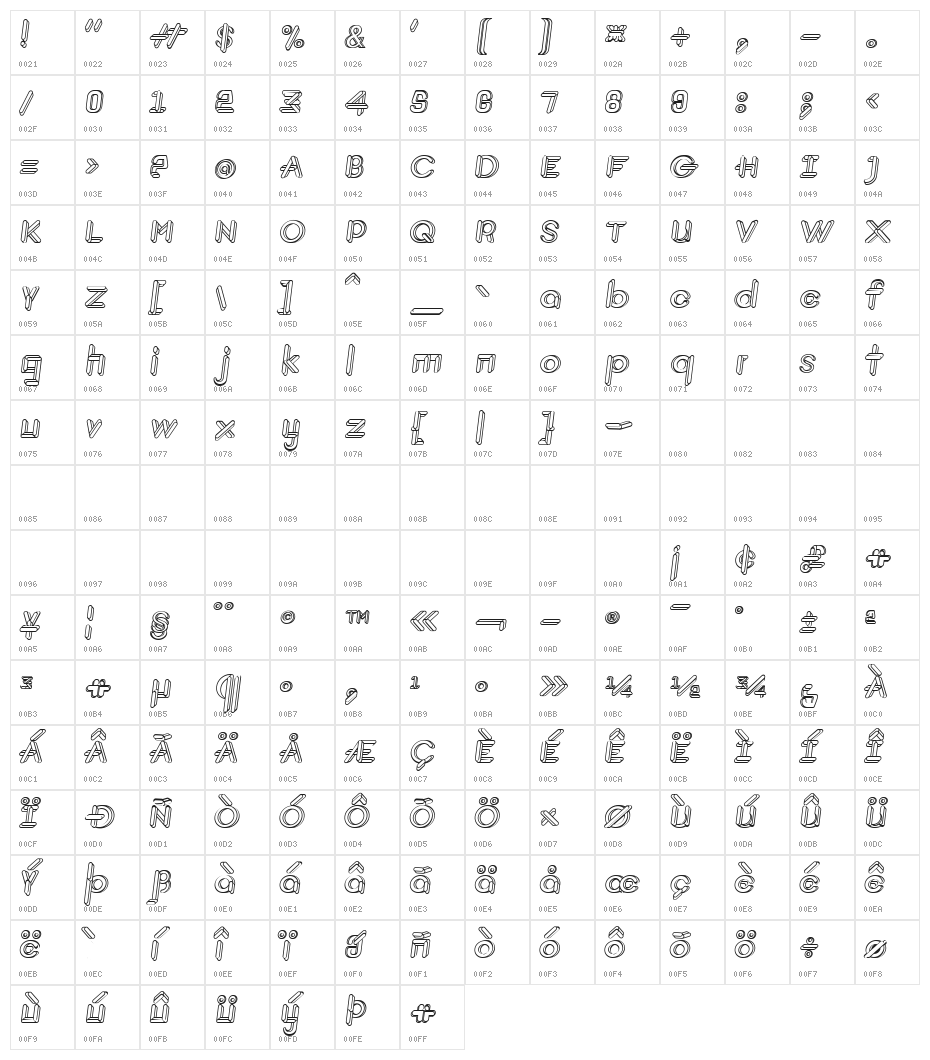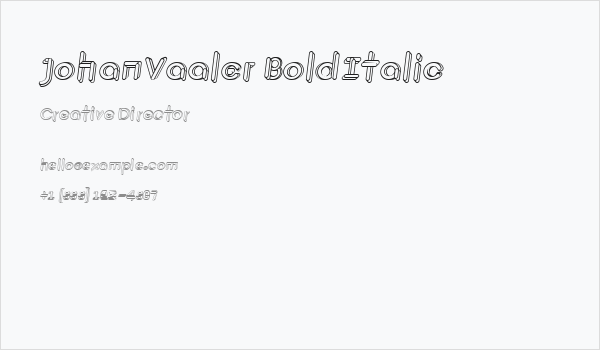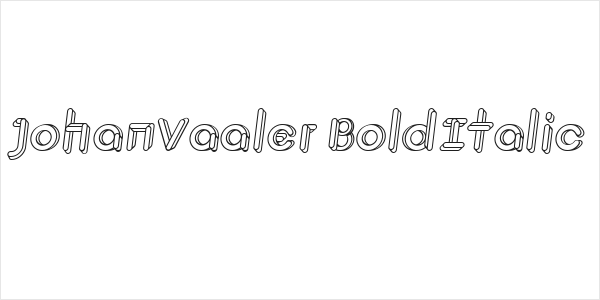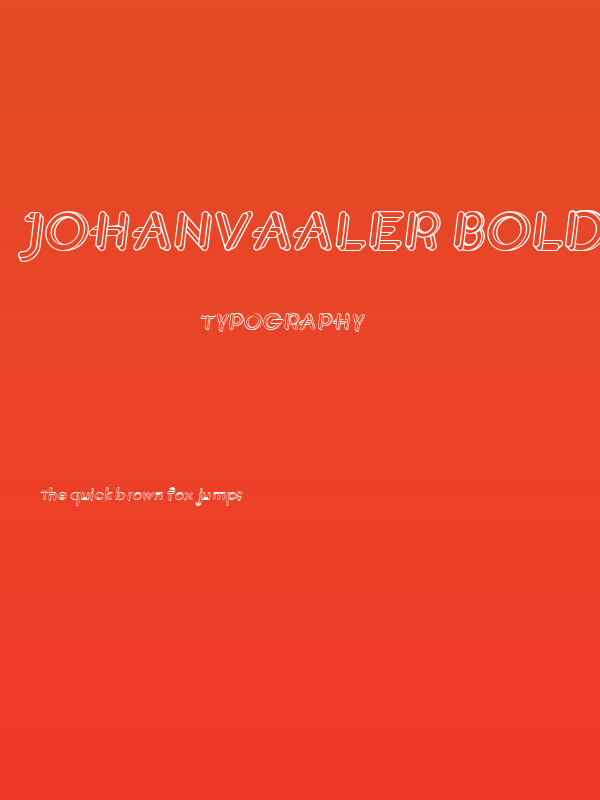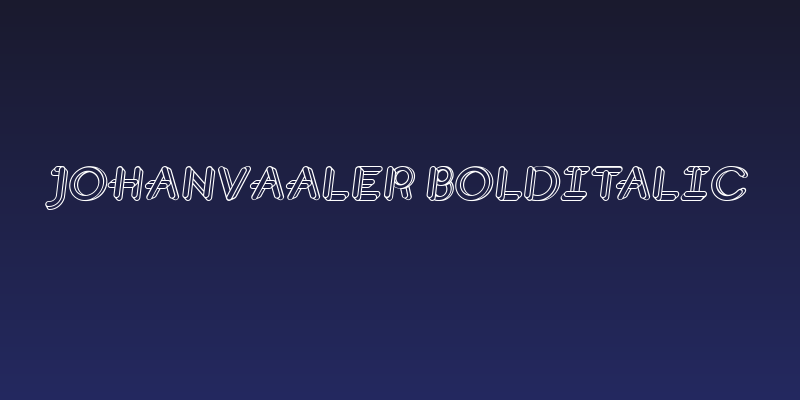
JohanVaaler BoldItalic Font
JohanVaaler BoldItalic Description
This font features a bold and italicized style with a unique outline effect that gives each character a three-dimensional appearance. The letters are constructed with parallel lines, creating a sense of depth and movement. The uppercase and lowercase letters maintain a consistent style, with rounded edges and a playful, modern aesthetic. The numerals and special characters follow the same design principles, ensuring uniformity across all glyphs. This font is eye-catching and ideal for projects that require a dynamic and contemporary look.